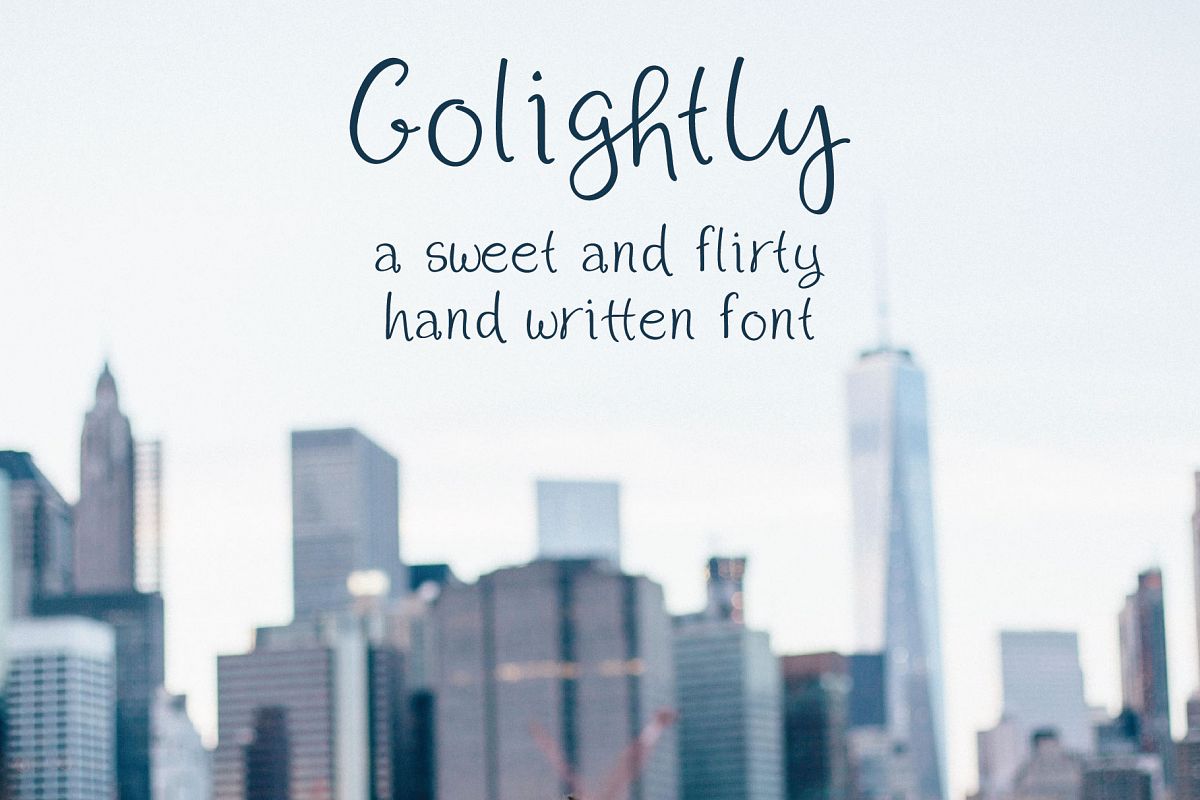
Golightly
Introducing Golightly, a sweet and flirty hand lettered font.Golightly includes 14 standard ligatures to add depth and interest to your designs. Golightly also contains multilingual support with accented characters for international (Western European, Central European and South Eastern European) users. Simply access them through the Glyphs palettes in programs like Illustrator or InDesign. If you don't have these programs, you'll still have access to all of the standard and international characters.